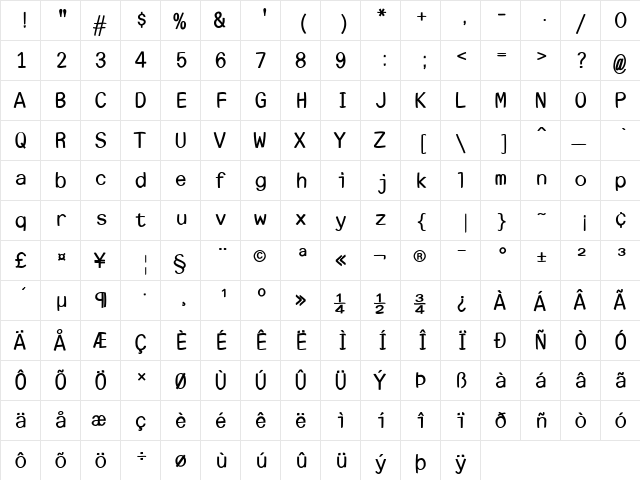
EscapeTypewriterSans Regular Font Preview
EscapeTypewriterSans Regular
Design Context for EscapeTypewriterSans Typeface
EscapeTypewriterSans brings the precise, column-aligned rhythm of monospaced typography to designs that value technical clarity and systematic order.
Pro Tip: Pair EscapeTypewriterSans with a proportional sans for UI contexts where code-style labels and regular body copy need to coexist.